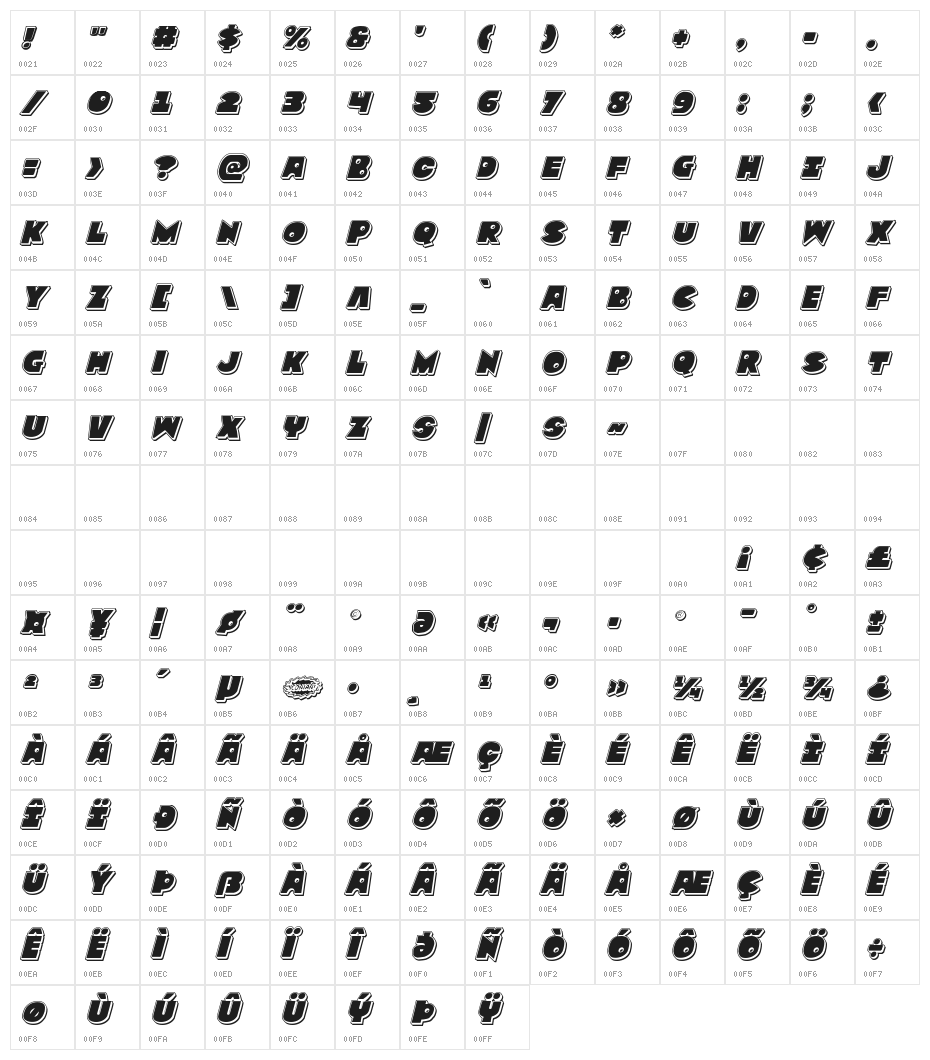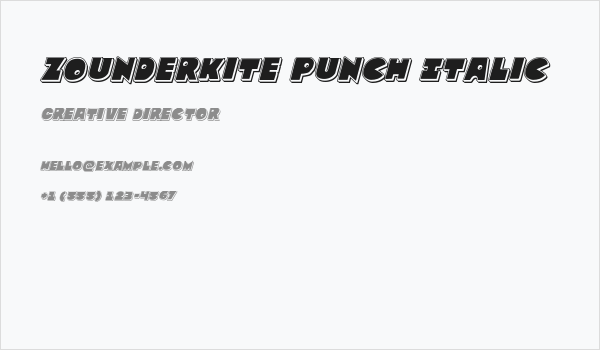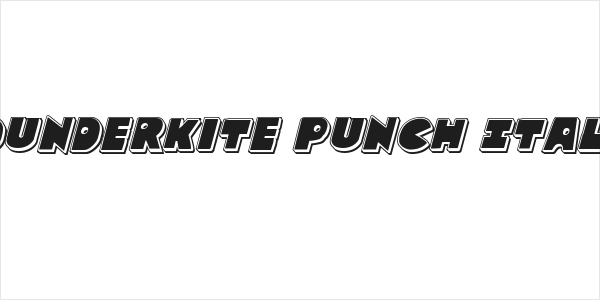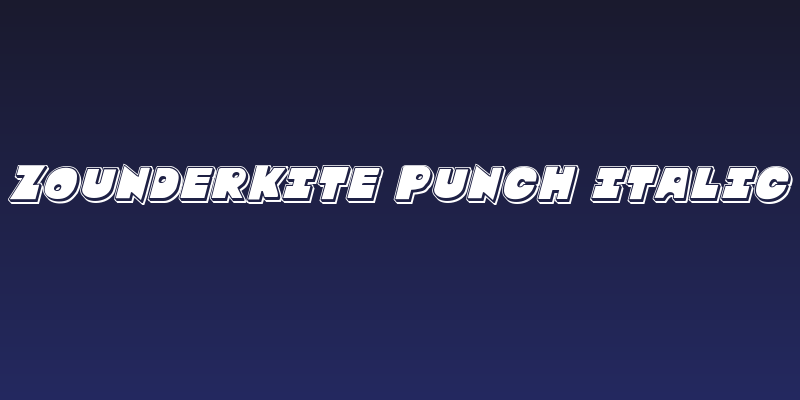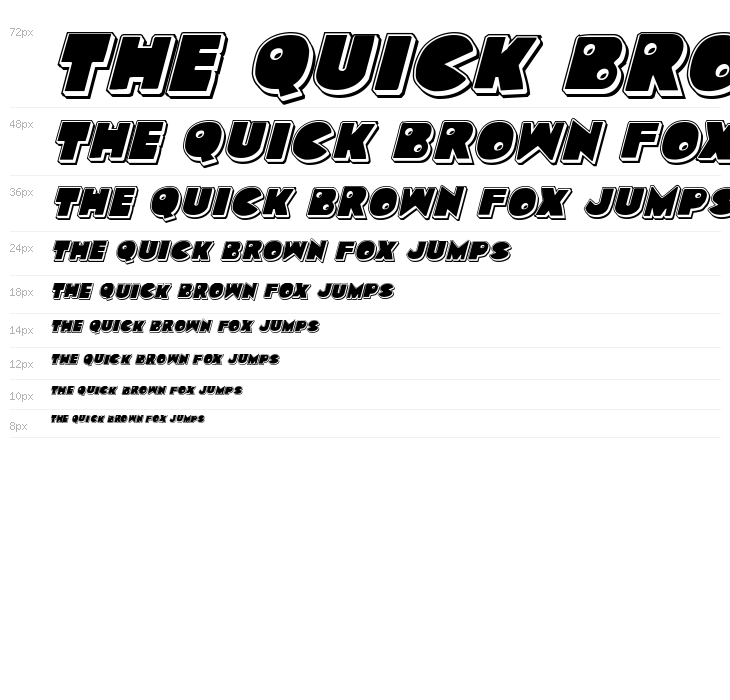
Zounderkite Punch Italic Font
Zounderkite Punch Italic Description
This font features a bold, dynamic style with a strong presence. The characters are outlined with a thick black border, giving them a punchy, impactful look. The letters are slightly italicized, adding a sense of motion and energy. The font is highly decorative, with a playful and modern aesthetic. The uppercase and lowercase letters maintain a consistent style, and the numbers and special characters are designed to match the boldness and flair of the alphabet. This font is ideal for projects that require a standout, eye-catching typeface.
| Proposed Projects | Perfect for posters, headlines, logos, and any design needing a bold, energetic typeface. |